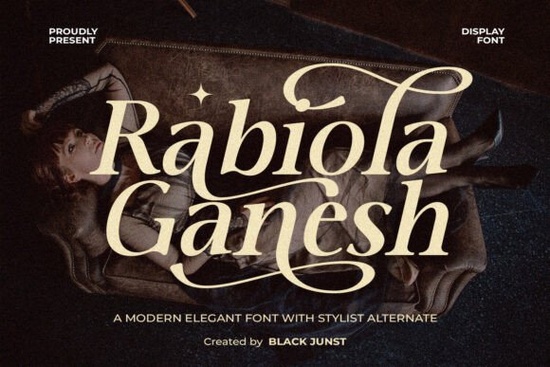
If you are looking for a serif typeface that brings refined character to high-end projects, Rabiola Ganesh delivers exactly that. This modern display font combines graceful curves with sharp, high-contrast strokes to create a polished look without feeling stiff. Designers, crafters, and small business owners often reach for this family when they need typography that feels expensive yet approachable. The built-in swashes and alternate glyphs let you tweak individual letters quickly, saving hours of manual vector tracing or complex layer manipulation.
Why does contrast matter in luxury branding?
Premium brands rely on visual hierarchy to communicate quality. High-contrast serifs draw the eye immediately, which explains why fashion houses and cosmetic labels prefer them. Large headlines gain rhythm and depth from these thickness variations. Pair the display face with simpler sans-serifs for body text, or let it carry wedding invitations and editorial spreads entirely. Exploring collections like Silk Remington shows how rounded serifs balance sharper cuts. Mixing styles keeps designs readable while staying upscale.
How do alternate characters actually improve workflow?
Modern font files pack more than standard ASCII shapes. This family includes numerous stylistic sets, ligatures, and extended punctuation marks that respond directly to your keyboard or font panel. Instead of drawing custom flourishes by hand, you activate pre-made swashes through OpenType settings or a dedicated glyph window. Many creators find that simply cycling through alternate endings for letters like R, S, and G adds instant personality to logos and social media graphics. Accessing these features works smoothly in Adobe Illustrator, Affinity Designer, and CorelDRAW once you import the package. For those tracking down the original download page, checking out the main listing provides direct access to the full character set and sample PDFs.